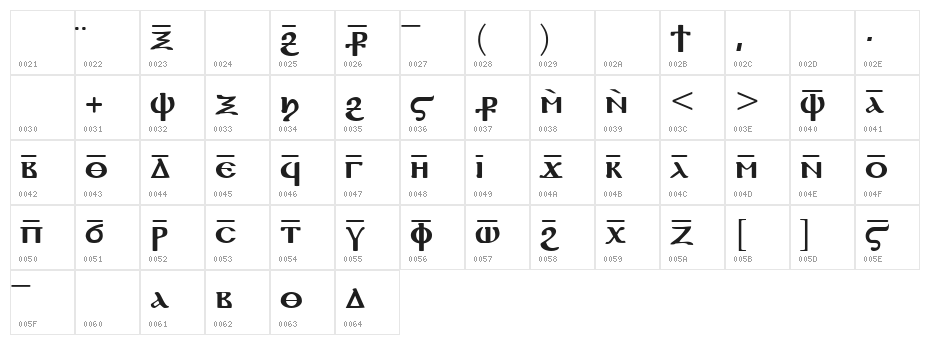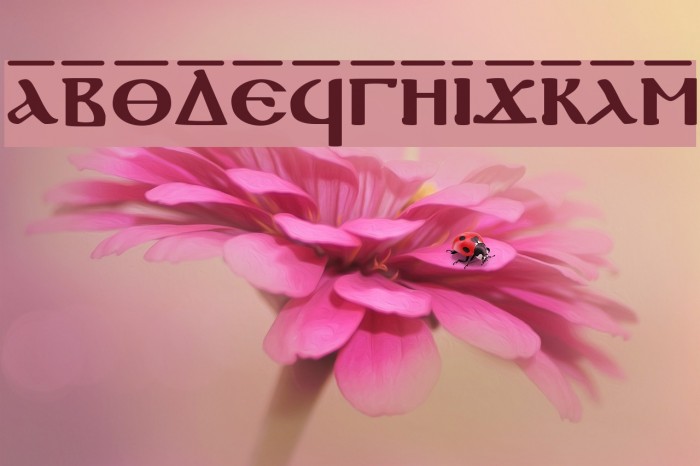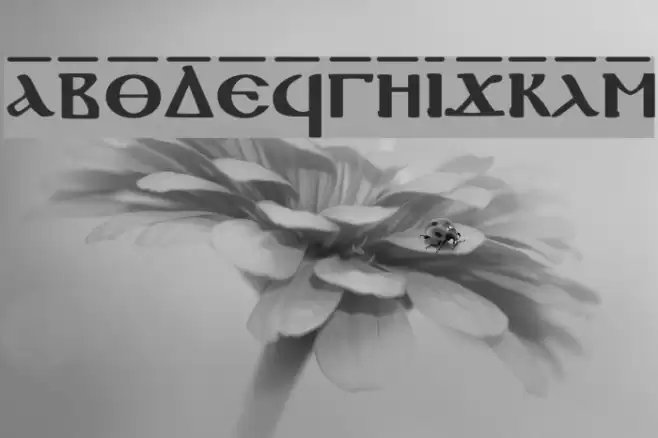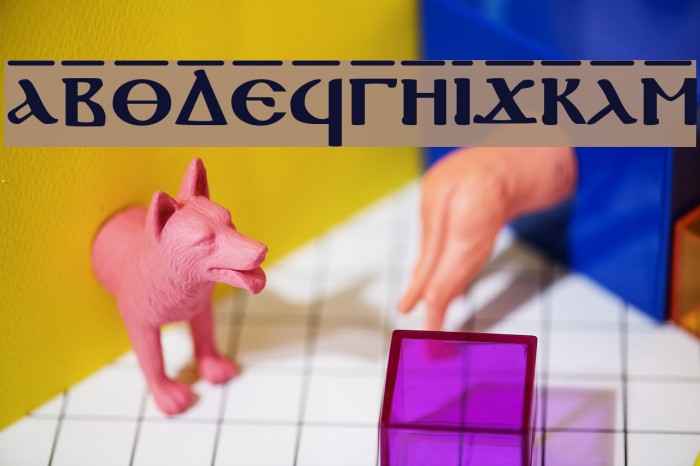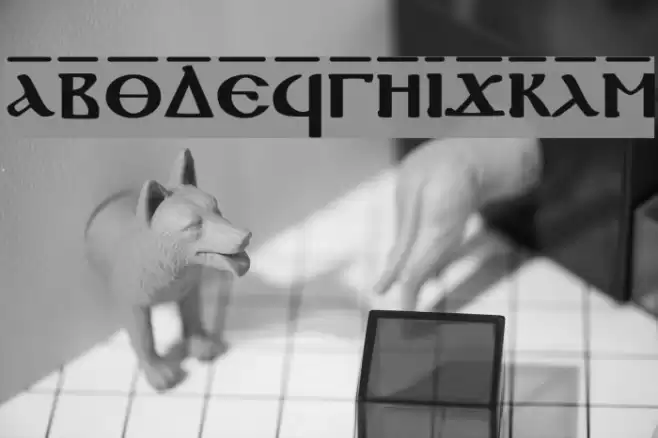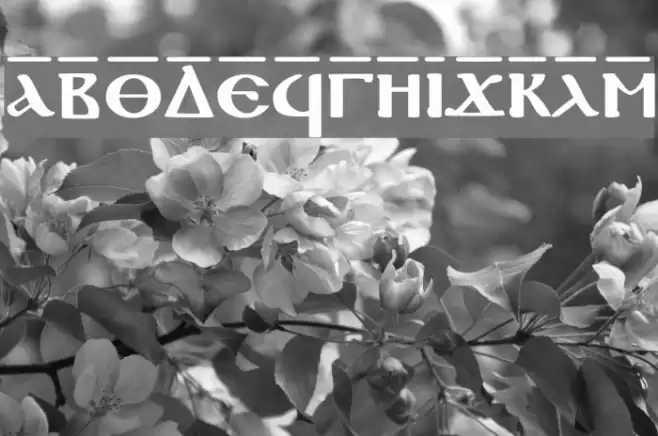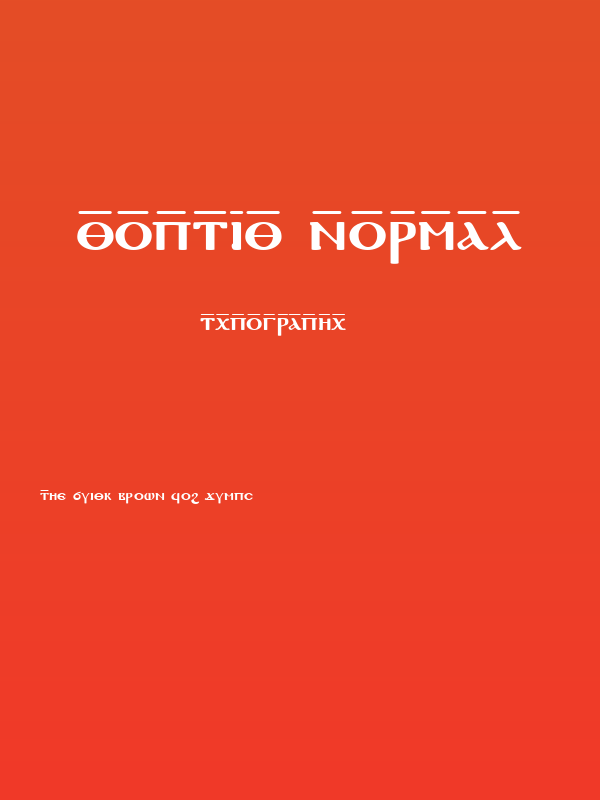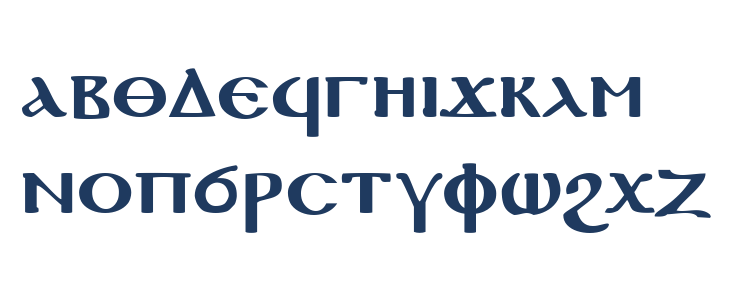
Coptic Normal Font
Coptic Normal Description
This font features a unique blend of ancient and modern design elements, characterized by its bold and striking appearance. The uppercase letters are adorned with horizontal lines above them, adding a distinctive flair. The lowercase letters maintain a consistent style, with smooth curves and sharp angles that create a harmonious balance. The numerals and special characters are equally bold, ensuring readability and impact. This font's design is reminiscent of historical scripts, yet it maintains a contemporary feel, making it versatile for various applications.
| Proposed Projects | Ideal for projects that require a historical or cultural touch, such as museum exhibits, educational materials, or themed event branding. |